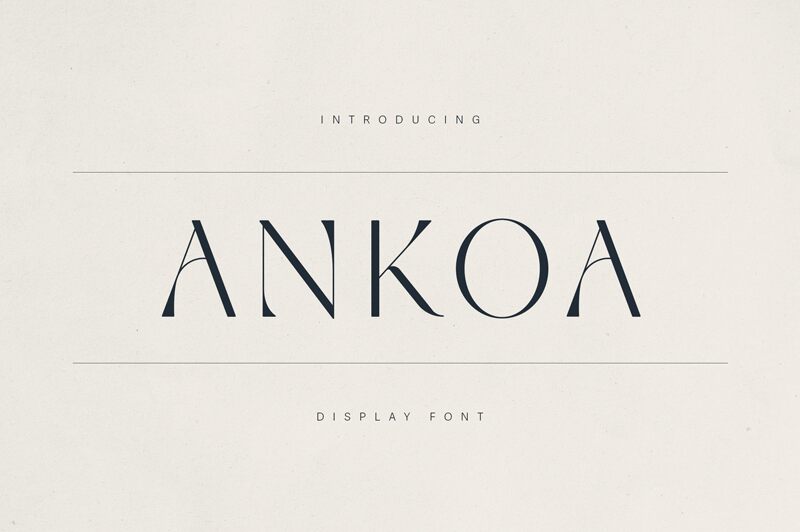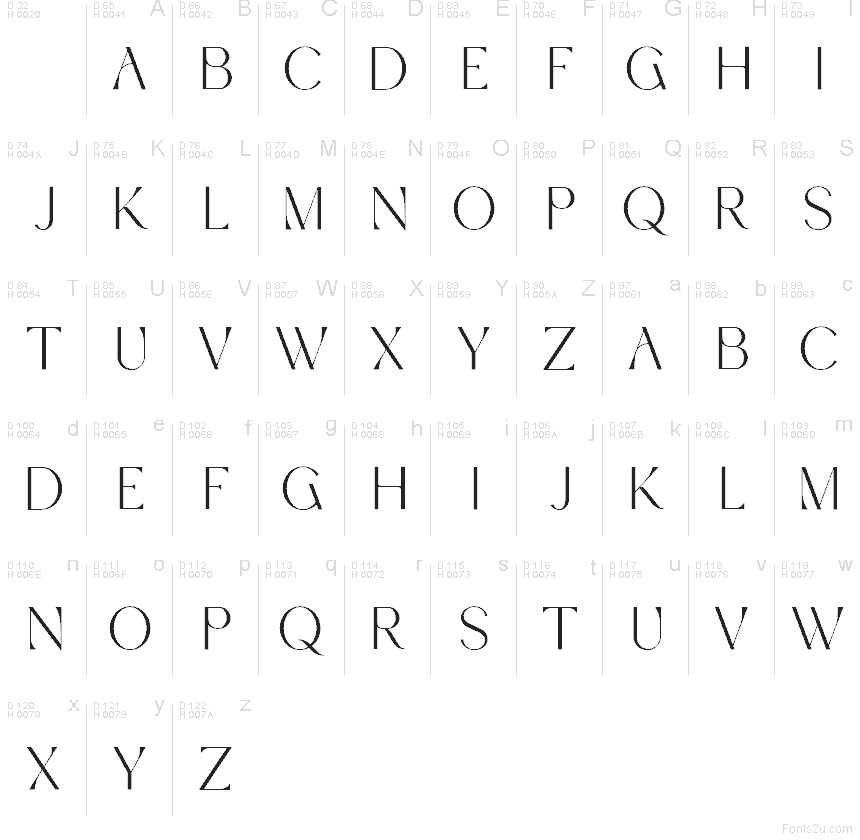
Ankoa font by VPcreativeshop is a free serif typeface that feels like it was cut from polished stone—sharp, tall, and gracefully narrow. Its long verticals and delicate in–out curves give words a runway attitude, while the airy spacing keeps even all-caps looking refined instead of cramped. Every letter carries a touch of drama, making short titles and names feel instantly special.
Using Ankoa, headlines and logos gain that sleek editorial mood you see in fashion magazines and luxury packaging. This free font shines on branding, perfume or cosmetics labels, boutique posters, high-end invitations, and bold social media graphics. For a balanced look, pair Ankoa with a clean geometric sans for body text and keep Ankoa large with generous whitespace so its elegant strokes can really breathe.